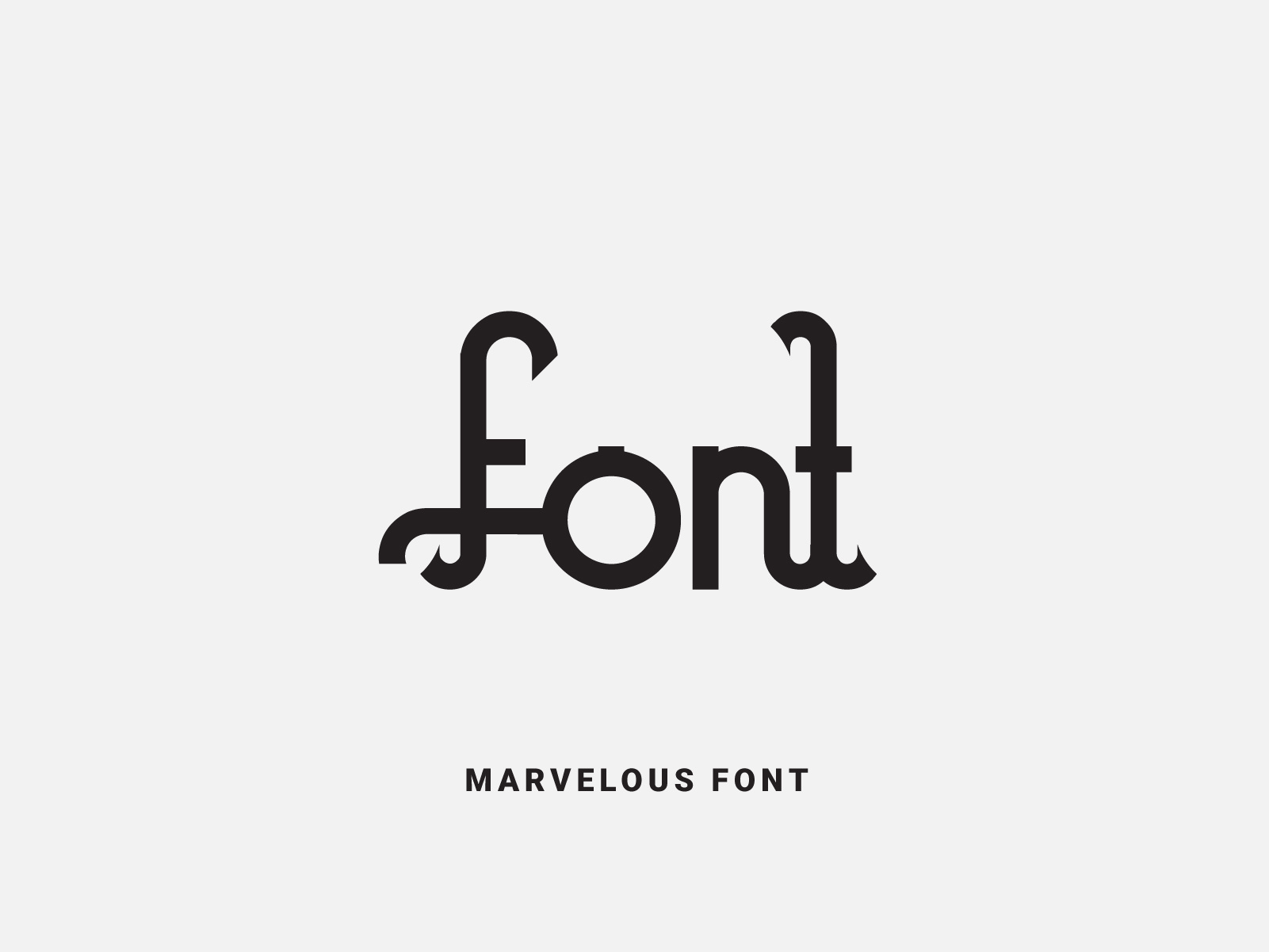
Marvelous Font
Marvelous is a slab serif font that looks equally solemn and dainty. Its uniquely carved characters make this font the perfect choice for bold projects that need to stand out! This font is PUA encoded, which means you can access all of the glyphs and swashes with ease!